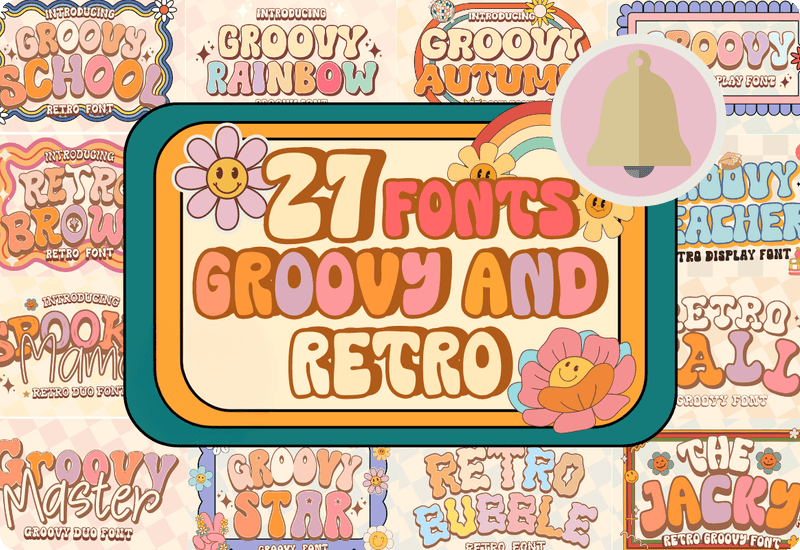
Transform your designs with a splash of nostalgia using the Groovy and Retro Font Bundle, a carefully curated collection of 27 unique fonts that bring vibrant, retro-inspired vibes to your creative projects. Whether you’re designing posters, branding materials, or social media content, these fonts will add an irresistible charm to your work.
A Diverse Collection of Premium Groovy Retro Fonts
The bundle includes a wide variety of styles to suit different creative needs. From bold display fonts to playful decorative typefaces, there’s something for every project. Some of the standout fonts in this collection include:
- Groovy Rainbow Display Font: A vibrant, colorful font ideal for eye-catching posters and event promotions.
- Retro Western Display Font: Bring the wild west to life with this bold and dynamic typeface.
- Magic Night Decorative Font: Perfect for whimsical and enchanting designs.
- Groovy Master Display Font: A statement font that commands attention.
- Retro Bubble Decorative Font: Add a playful touch to your graphics with this fun and bubbly typeface.
Premium Fonts included in the Groovy and Retro Font Bundle
- Groovy Rainbow Display Font
- Retro Western Display Font
- Retro Teacher Decorative Font
- Summer Flowers Display Font
- Hello Hippie Font Display Font
- Groovy Master Display Font
- Retro Mama Display Font
- Just Smile Display Font
- Groovy Star Display Font
- Magic Camp Display Font
- Groovy School Display Font
- Middle School Display Font
- Retro Wonder Display Font
- Retro Beach Display Font
- Funky Star Duo Display Font
- Magic Night Decorative Font
- Easter Bunny Fontes de Exibição Fonte
- Teacher Summer Decorative Font
- Quick Display Font
- Groovy Teacher Display Font
- Groovy Display Font
- Groovy Autumn Display Font
- The Jacky Display Font
- Retro Bubble Decorative Font
- Retro Fall Display Font
- Retro Brown Display Font
- Spooky Mama Polices d’Affichage Police
Retro Vibes That Resonate
Retro and groovy designs have made a major comeback in the design world, and this bundle is your ticket to staying on-trend. Whether you’re going for a 70s-inspired look or a funky modern twist, these fonts capture the essence of nostalgia while remaining fresh and contemporary.